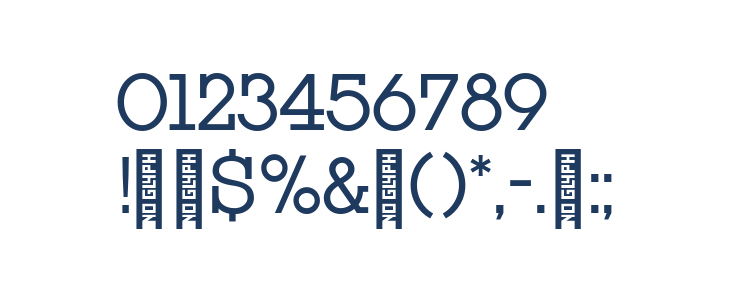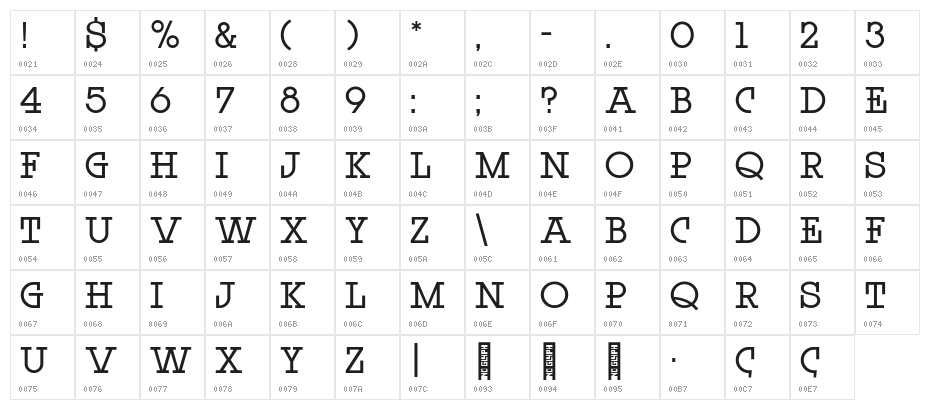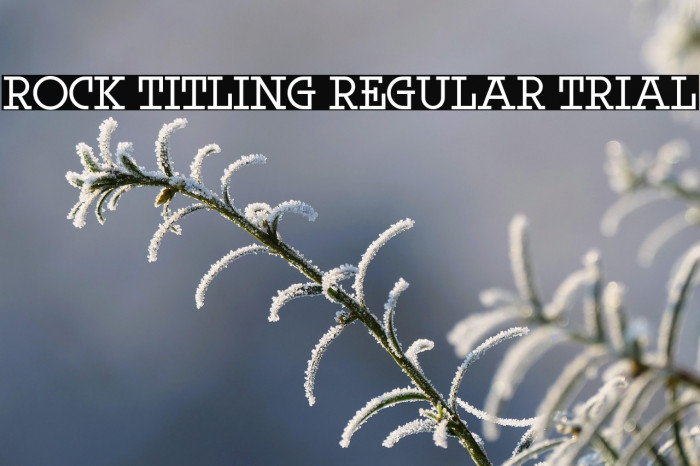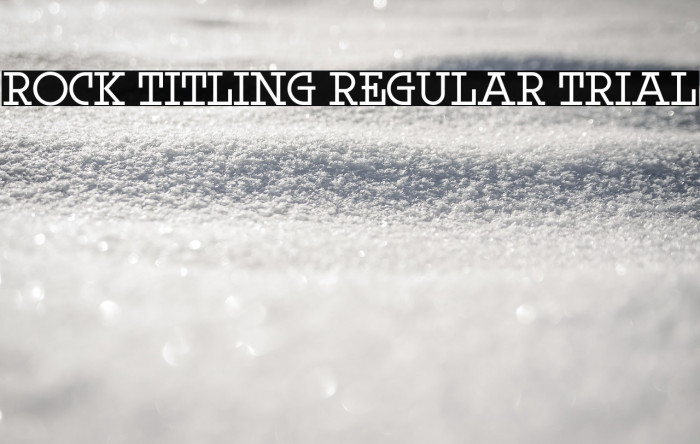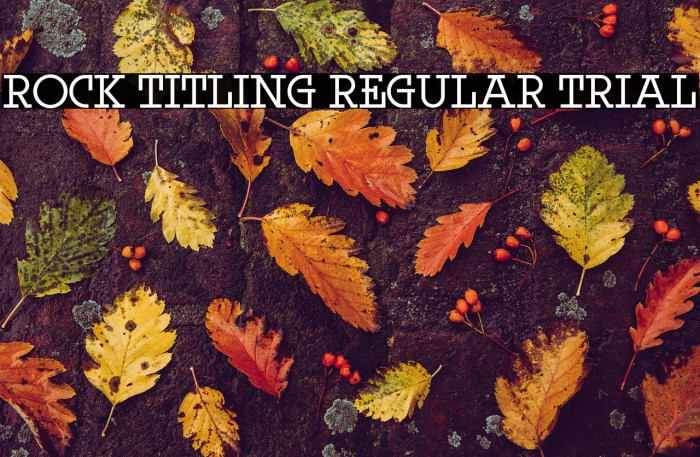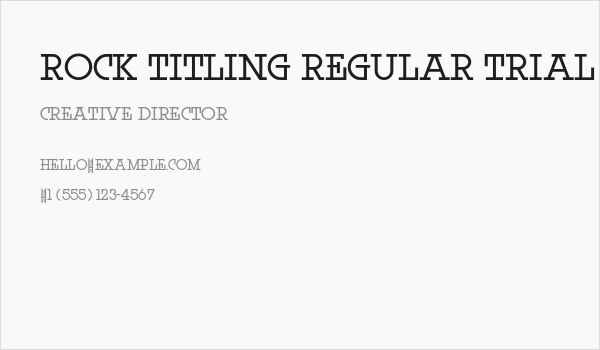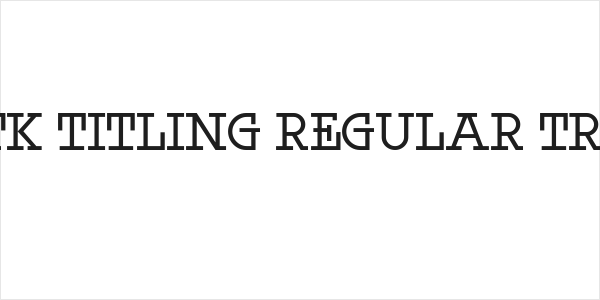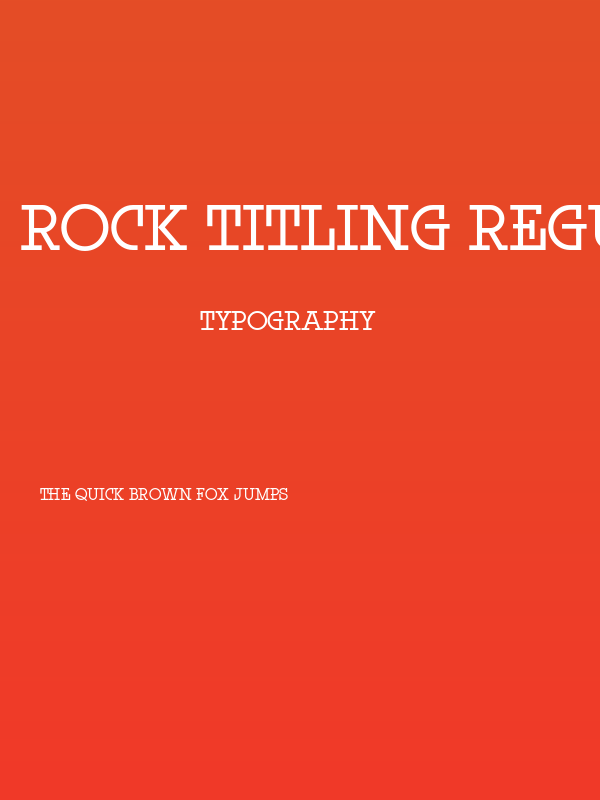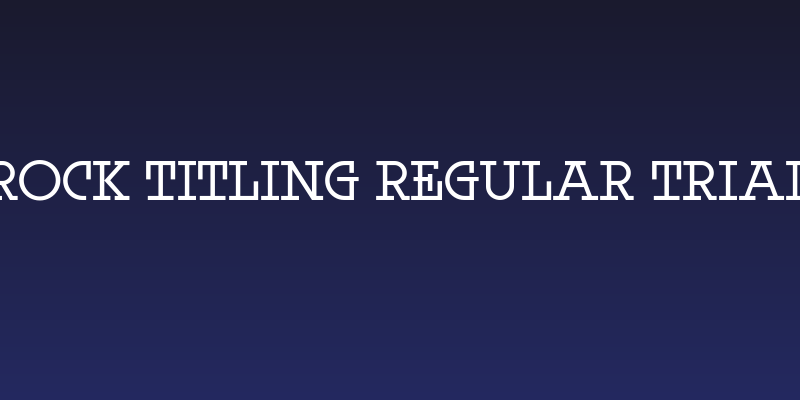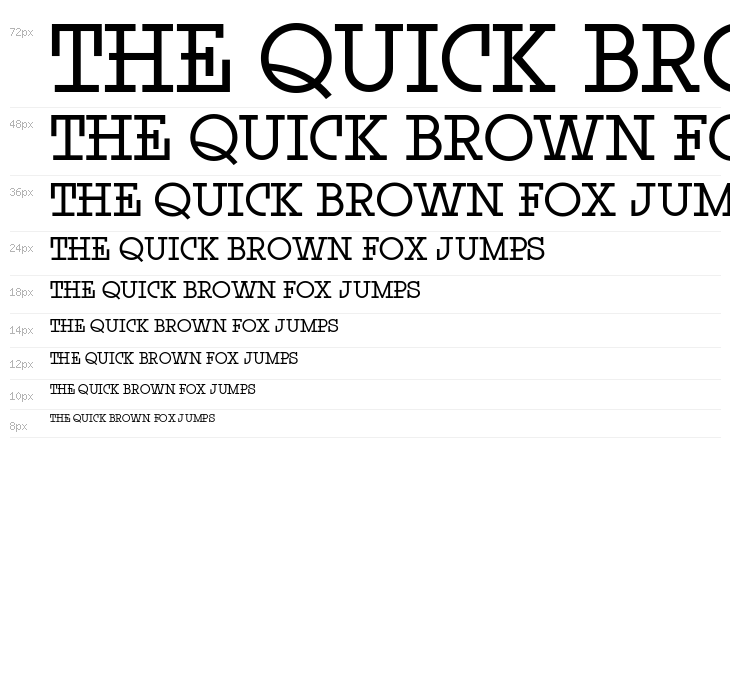
Rock Titling Regular Trial Font
Rock Titling Regular Trial Description
This font features a bold and striking serif design, characterized by its strong vertical lines and pronounced serifs. The uppercase letters are particularly dominant, with a uniform height and width that convey a sense of stability and authority. The numerals are equally robust, maintaining the same weight and style as the letters, ensuring consistency across text. Special characters are designed with the same attention to detail, making them easily distinguishable. The overall appearance is both classic and modern, suitable for making a statement in any design.